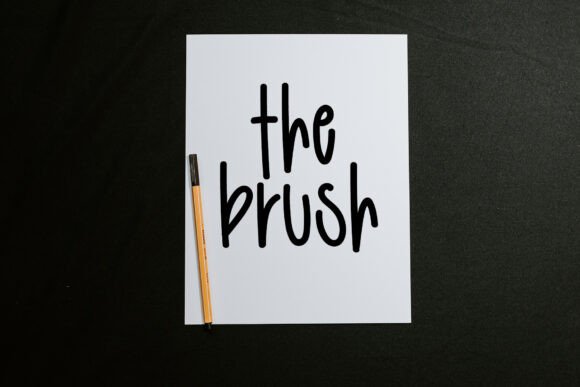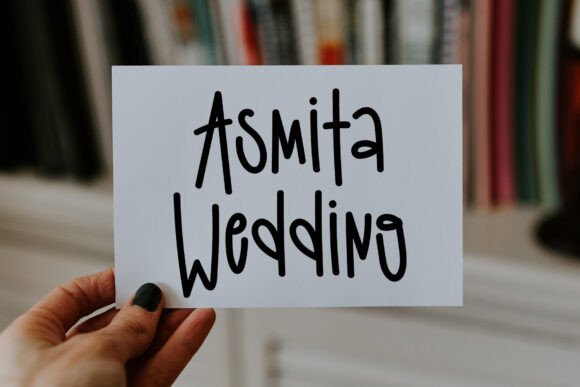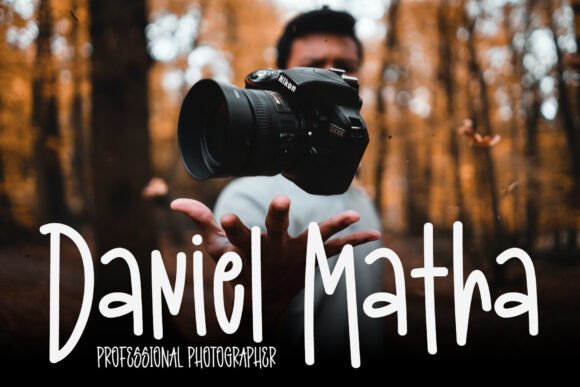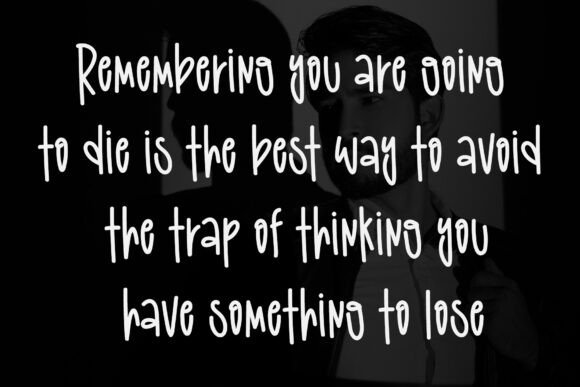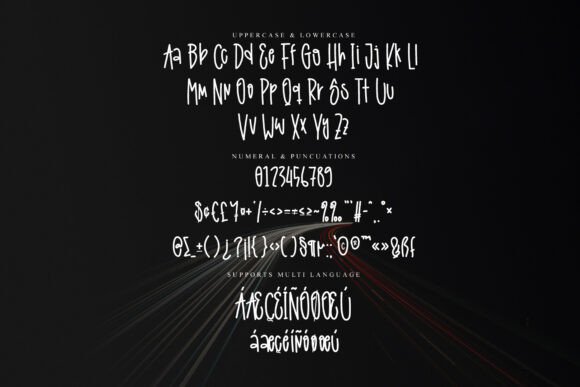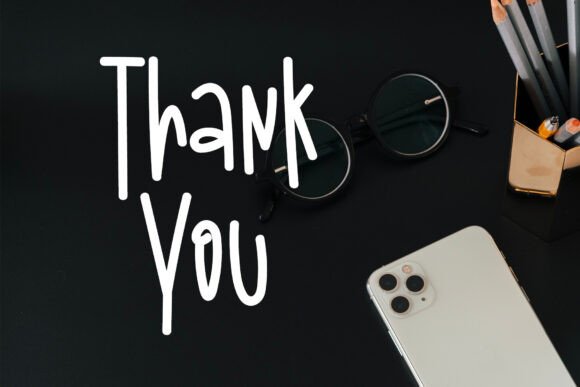
Candy Biscuit Font: A Sweet and Playful Addition to Your Designs
Are you looking for a font that adds a burst of joy and energy to your designs? Look no further than Candy Biscuit, a delightfully quirky and playful display font that’s as fun as it is eye-catching. With its bouncy, hand-painted brush strokes and sugary charm, this playful brush font is perfect for designers and crafters who want to add a touch of whimsy to their work.
The Charm of Candy Biscuit
Candy Biscuit is a one-of-a-kind font that’s sure to make your designs stand out. Its hand-painted brush strokes give it a unique, organic feel that’s reminiscent of childhood treats and happy memories. The font’s sugary charm is irresistible, making it perfect for designs that need a playful and fun touch. Whether you’re designing candy packaging, a playful logo, or a vibrant Instagram quote, Candy Biscuit is the perfect choice.
Features of Candy Biscuit
- Hand-painted brush strokes: Each letter in Candy Biscuit has been carefully hand-painted with bouncy brush strokes that give it a unique and playful feel.
- Sugary charm: The font’s sugary charm is irresistible, making it perfect for designs that need a touch of whimsy and fun.
- Playful and energetic: Candy Biscuit is the perfect font for designs that need a burst of energy and joy.
- Perfect for display designs: This font is perfect for display designs, such as headings, titles, and logos.
Uses for Candy Biscuit
Candy Biscuit is a versatile font that can be used in a variety of designs, including:
- Candy packaging: Add a touch of whimsy to your candy packaging with Candy Biscuit.
- Playful logos: Create a fun and playful logo with Candy Biscuit that’s sure to make your brand stand out.
- Vibrant Instagram quotes: Add a burst of energy to your Instagram quotes with Candy Biscuit.
- Children’s designs: Candy Biscuit is perfect for designs aimed at children, such as children’s books, games, and activities.
Why Choose Candy Biscuit?
There are many reasons why you should choose Candy Biscuit for your designs. Here are just a few:
- Unique and playful: Candy Biscuit is a one-of-a-kind font that’s sure to make your designs stand out.
- Versatile: Candy Biscuit can be used in a variety of designs, from candy packaging to playful logos.
- Fun and energetic: This font adds a burst of energy and joy to your designs, making it perfect for designs that need a playful touch.
| Author | 21Design |
Candy Biscuit is a sweet and playful brush font that’s perfect for designers and crafters who want to add a touch of whimsy to their work. With its hand-painted brush strokes and sugary charm, this font is sure to make your designs stand out. Whether you’re designing candy packaging, a playful logo, or a vibrant Instagram quote, Candy Biscuit is the perfect choice. So why wait? Download Candy Biscuit today and start creating fun and playful designs that are sure to delight!